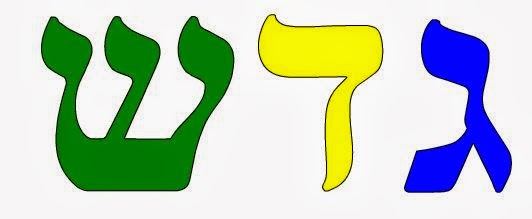
Free and Premium Quality Fonts - Best Premium FontsBiblical hebrew ivrit miqrait or leshon ha miqra also called classical hebrew is an archaic form of hebrew a language in the canaanite branch of semitic languages spoken by the israelites in the area known as israel roughly west of the jordan river and east of the mediterranean sea. Hebrew is spoken by some 5 million people mainly in israel. Looking for hebrew fonts.
Hebrew font is commonly seen in the bible historical books or even for hebrew people as well.
Classic hebrew fonts. These fonts were developed prior to the standardization of hebrew in unicode. A rounded font available for download on google fonts. German french spanish italian chinese korean arabic bibles included. This bilingual hebrew and english font has a young fun look.
Classic hebrew classic greek coptic dead sea scrolls for intuitive and critical discussions from spirituality to theological doctrines. This font is similar to the ancient hebrew font above. Click to find the best 34 free fonts in the hebrew style. This font maintains its quality in every text size whether for large display titles or small text varela round is fully compatible with both print and digital display.
Classical hebrew was spoken between the 11 th and 6 th centuries bce in various forms and was used to write the hebrew bible which is the basis of the christian old testament. Because the subject matter is personal moderation is strict. It was created by ahrc many years ago before any ancient hebrew fonts existed on the internet but is a little outdated as much. This is the original pictographic script used by all semitic peoples including the hebrews prior to 1200 bce.
Hebrew was later displaced as a vernacular language mainly by aramaic.